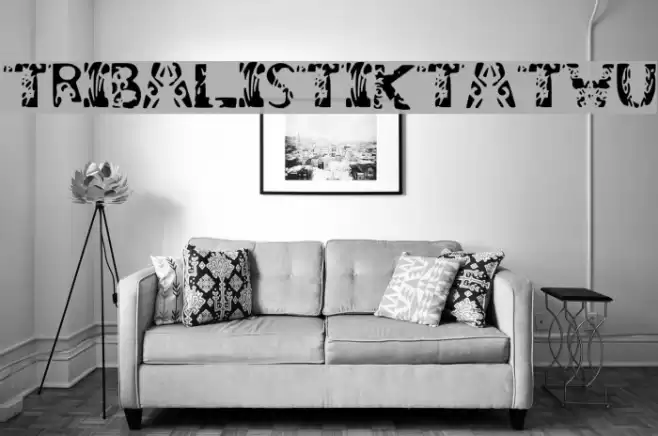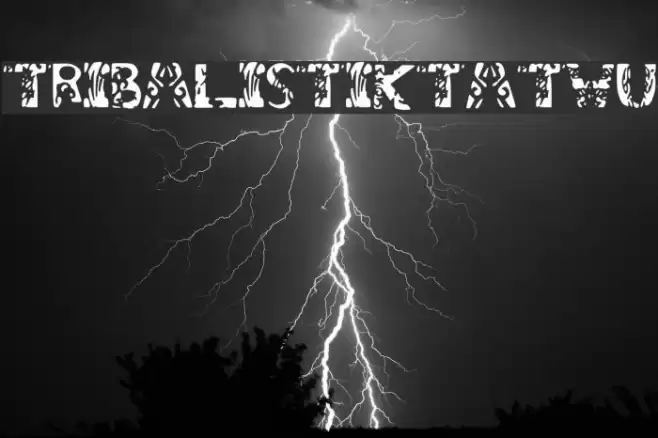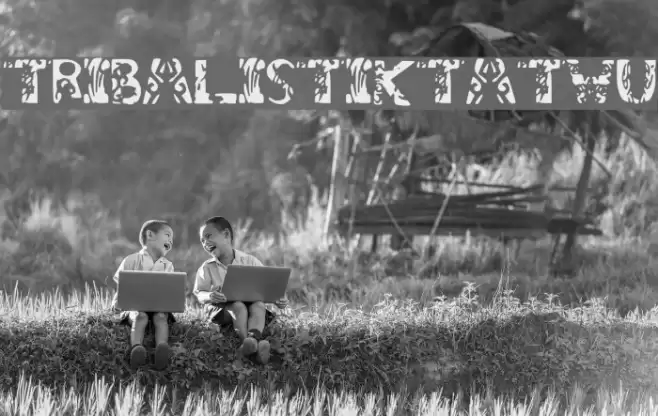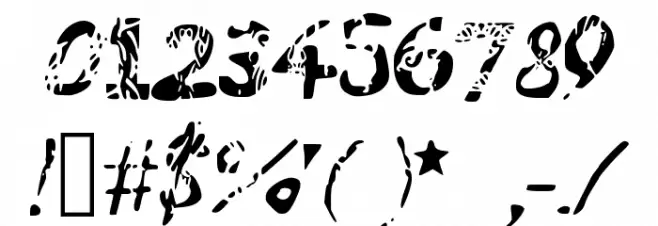
tribalistiktatwu Font
tribalistiktatwu Description
This font features a bold, decorative style with intricate tribal patterns embedded within each character. The design is highly detailed, with a mix of solid and negative spaces creating a striking visual effect. The uppercase and lowercase letters maintain a consistent theme, while the numbers and special characters are equally adorned with elaborate motifs. The overall appearance is both artistic and bold, making it stand out in any design project.
A bold, decorative font with intricate tribal patterns from Decorative fonts.